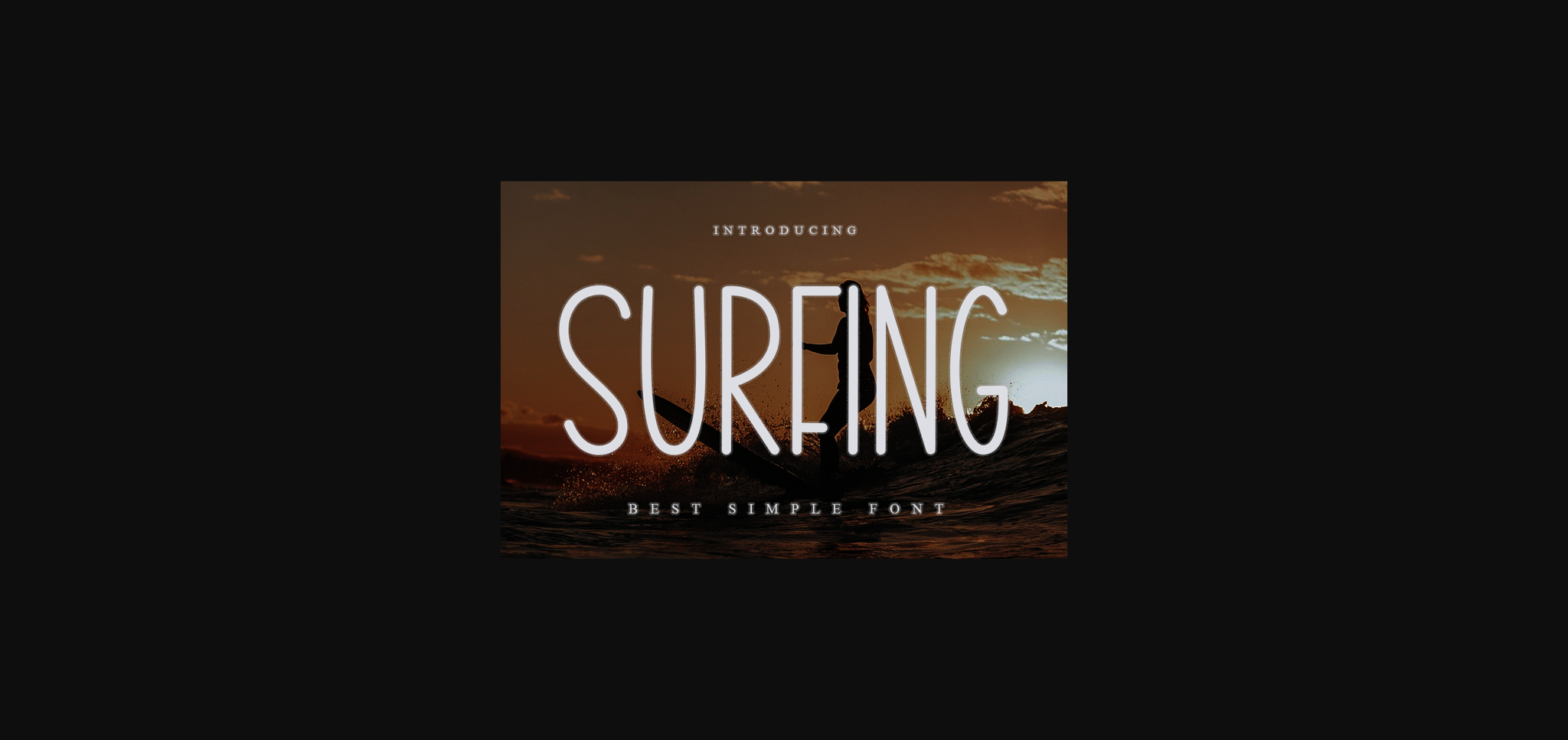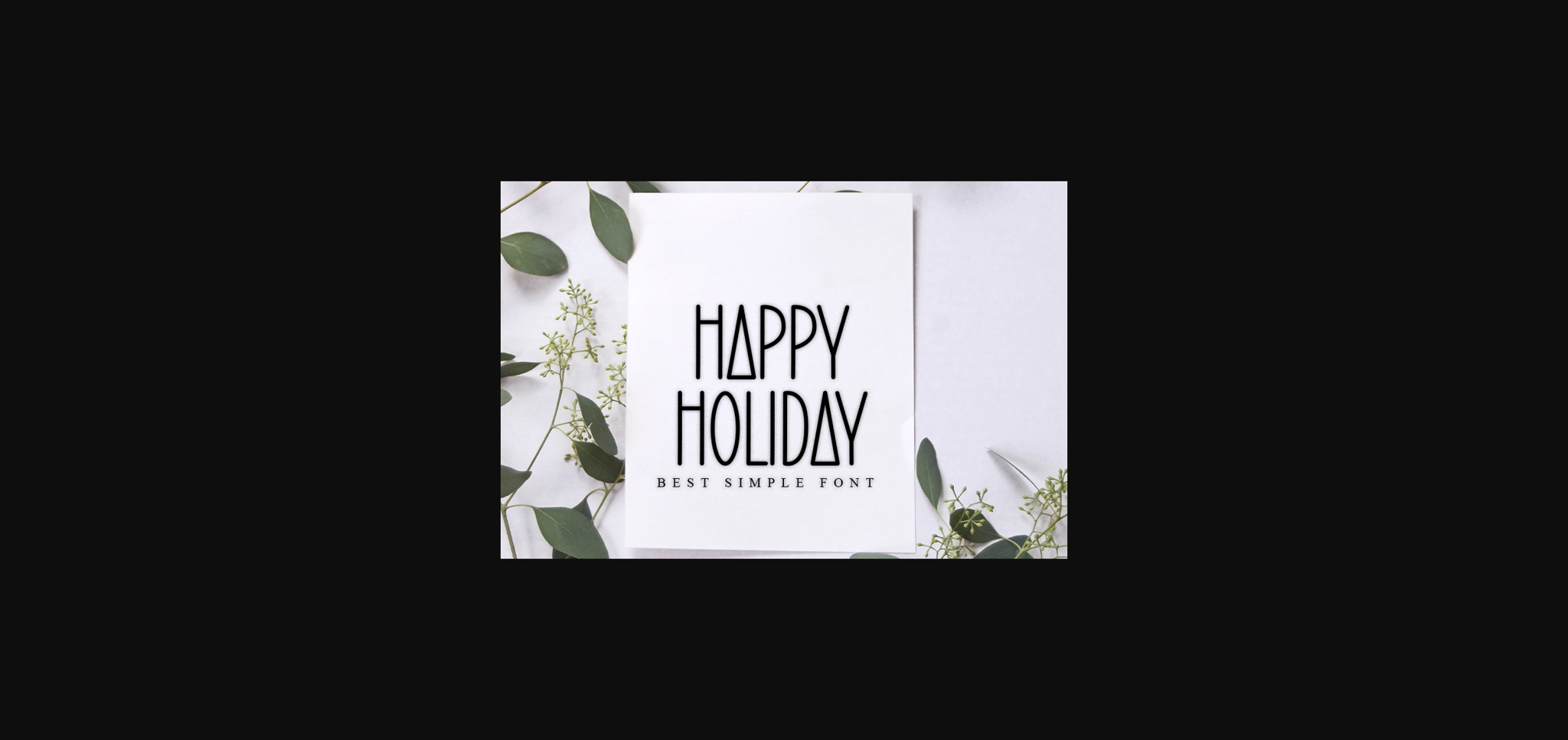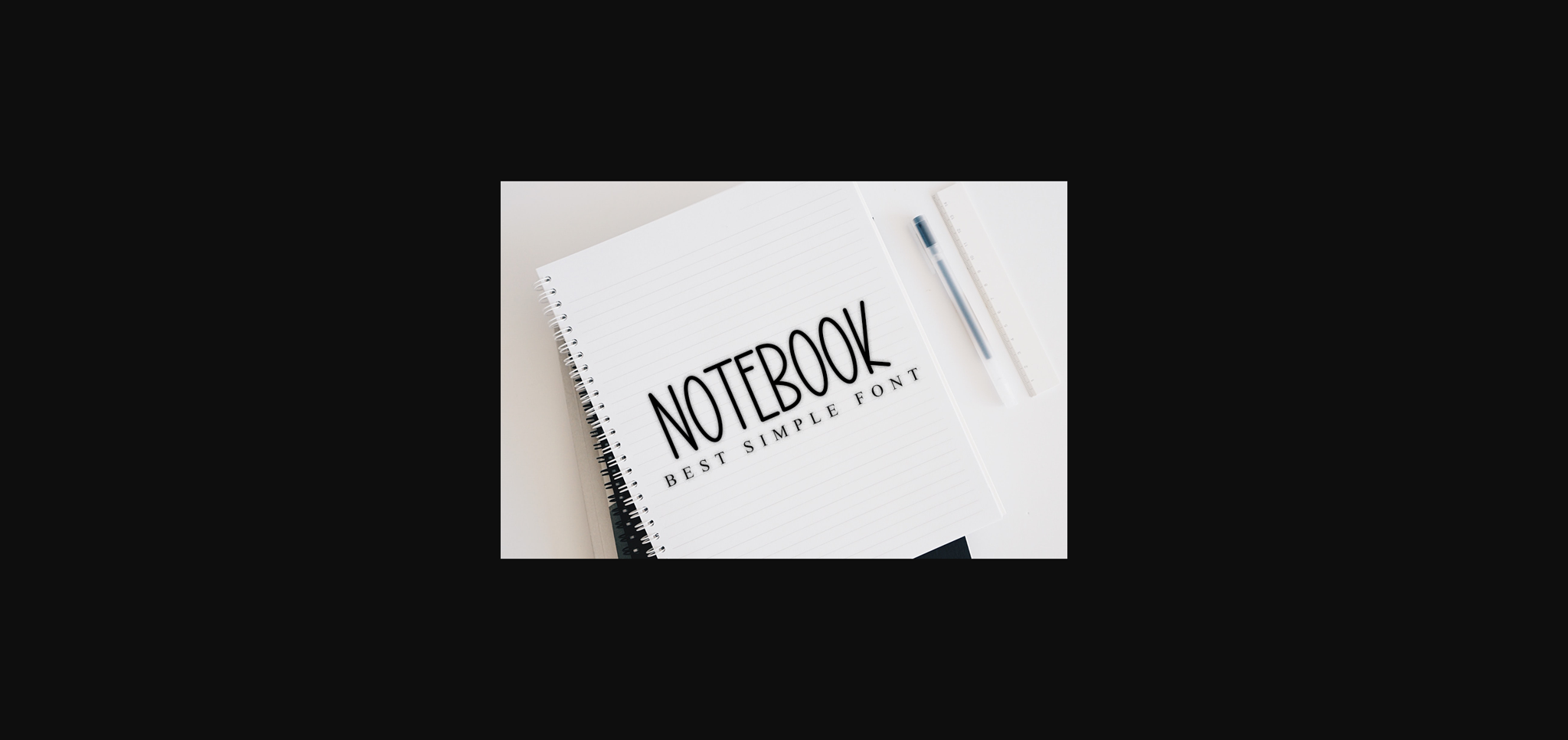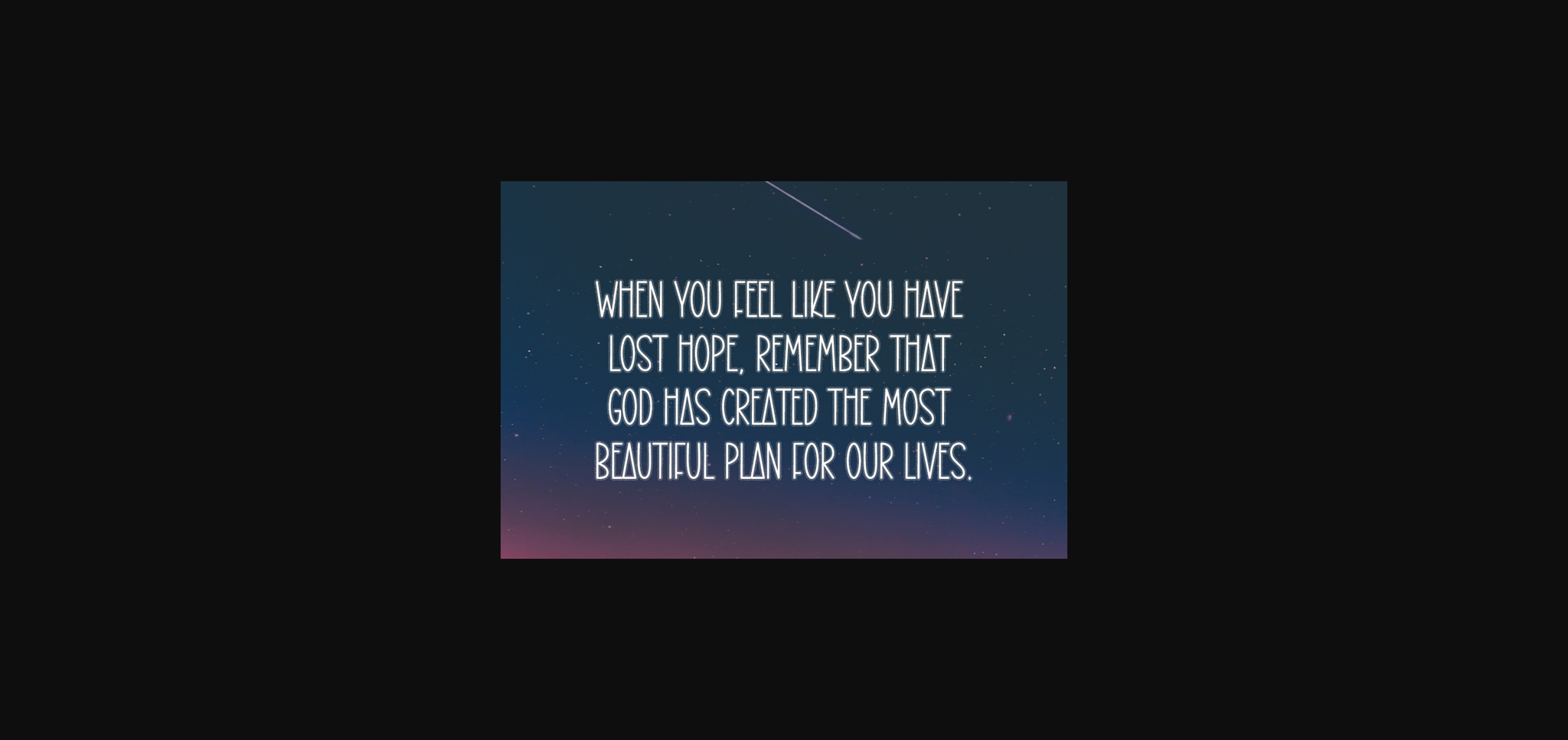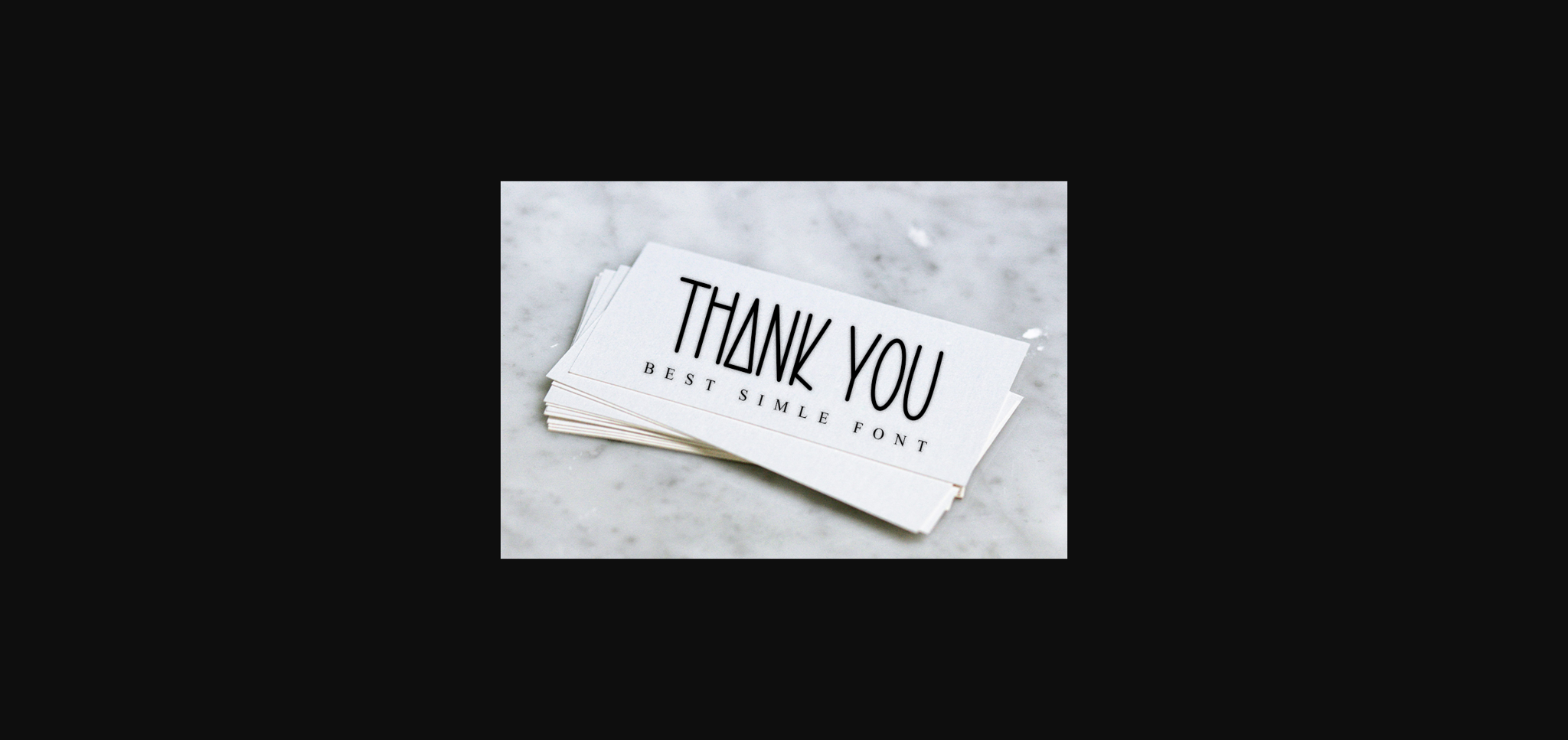
HomeSans Serif FontsSurfing Font Sans Serif Fonts Surfing Font FacebookXPinterestWhatsApp 1 of 7 ... Surfing Font Poster 2... Surfing Font Poster 3... Surfing Font Poster 4... Surfing Font Poster 5... Surfing Font Poster 6... Surfing Font Poster 7... About Surfing Font Surfing is a cool and modern sans-serif font. Whether you’re using it for crafts, digital design, presentations, or making greeting cards, this font has the potential to become your favorite go-to font, no matter the occasion. DOWNLOAD NOW People also explored Mahallina Font Garage Sale Baking Powder Font Paris Van Java Font Tournedos Baby Mollusca Raflesia Font Averta CY Sankara Font 368 0 TagsSurfingSurfing Font Previous articleOvermind FontNext articleSparkle Font LEAVE A REPLY Cancel reply Comment: Please enter your comment! Name:* Please enter your name here Email:* You have entered an incorrect email address! Please enter your email address here Website: Save my name, email, and website in this browser for the next time I comment. Personal Use Free Black Jalal Personal Use Free Read more about this font Farmgarden Personal Use Free Read more about this font Bethania Personal Use Free Read more about this font Propaganda Personal Use Free Read more about this font BLOG 5 Fonts That Will Dominate Design Trends in 2026 5 Fonts for 2026 That Will Dominate Design Trends Typography plays a critical role in visual communication, and as we look ahead to 2026, it’s... Top 10 Handwritten Fonts That Elevate Your Designs How to Cut Any Font on Cricut: Convert a Font to SVG (Free) The 10 Best Handwriting Fonts to Add Personality to Your Designs